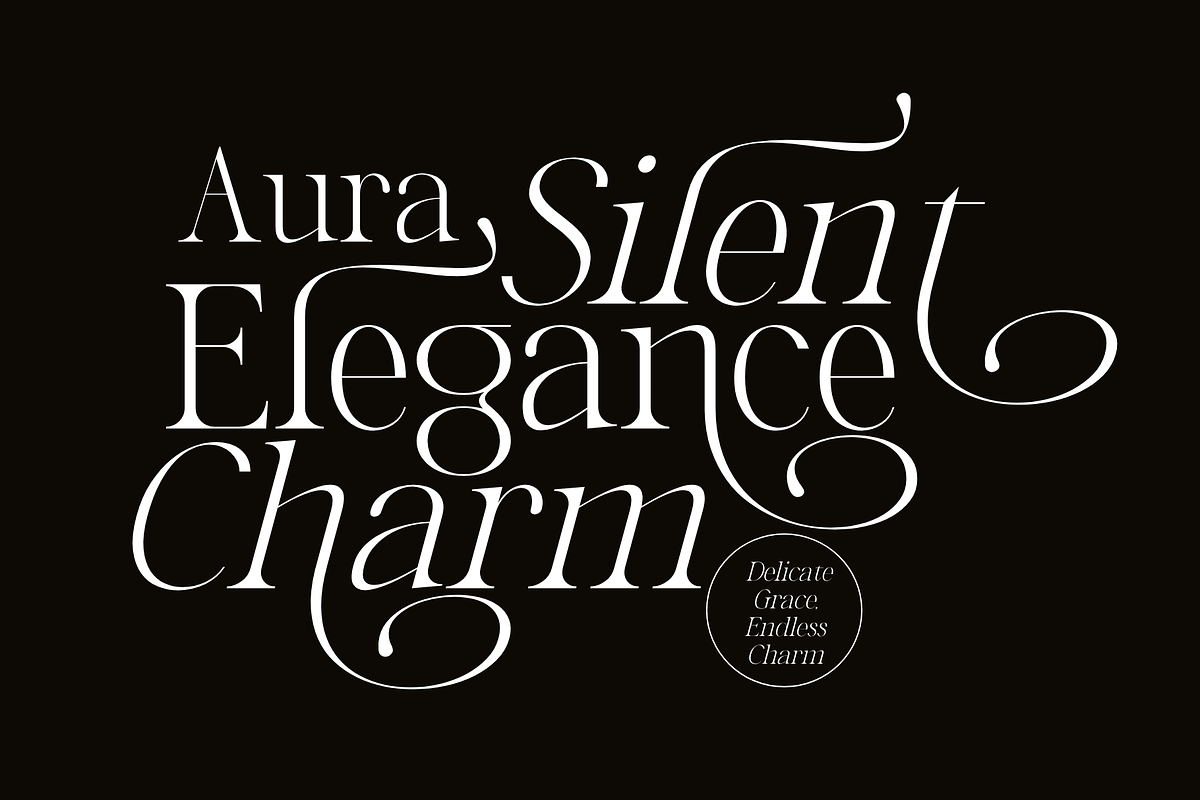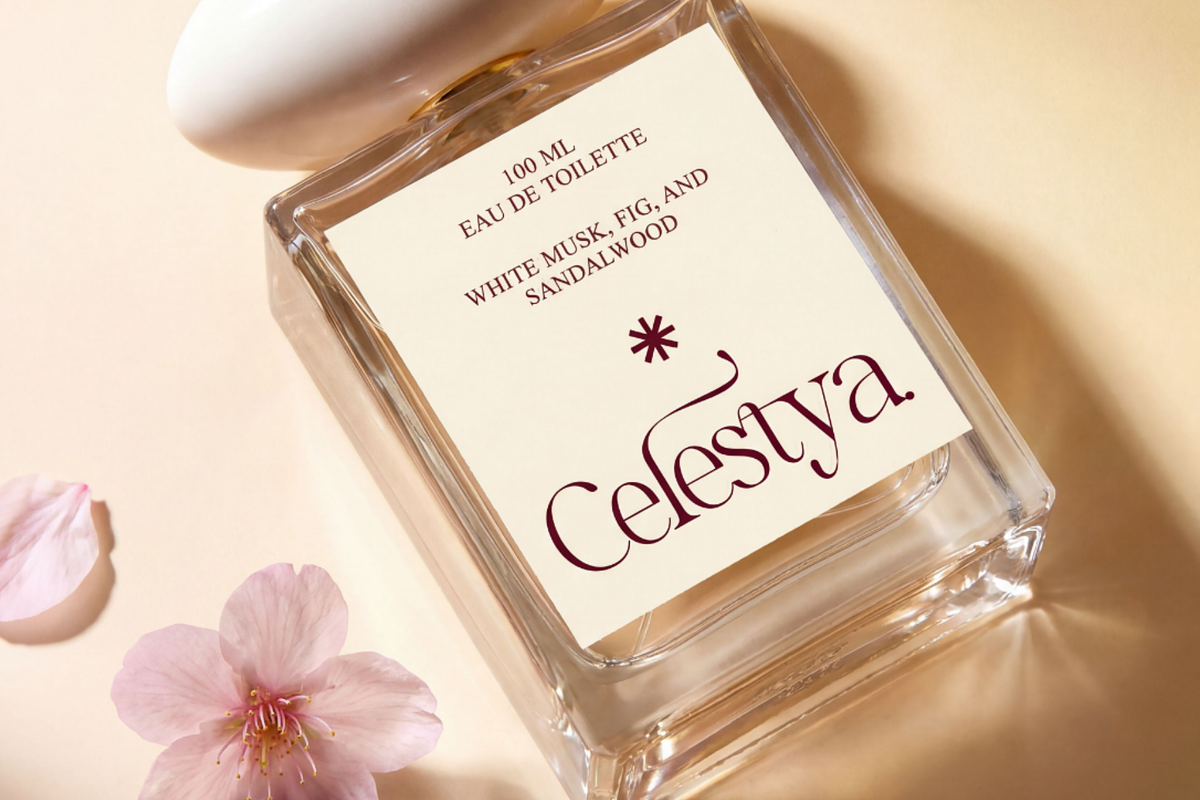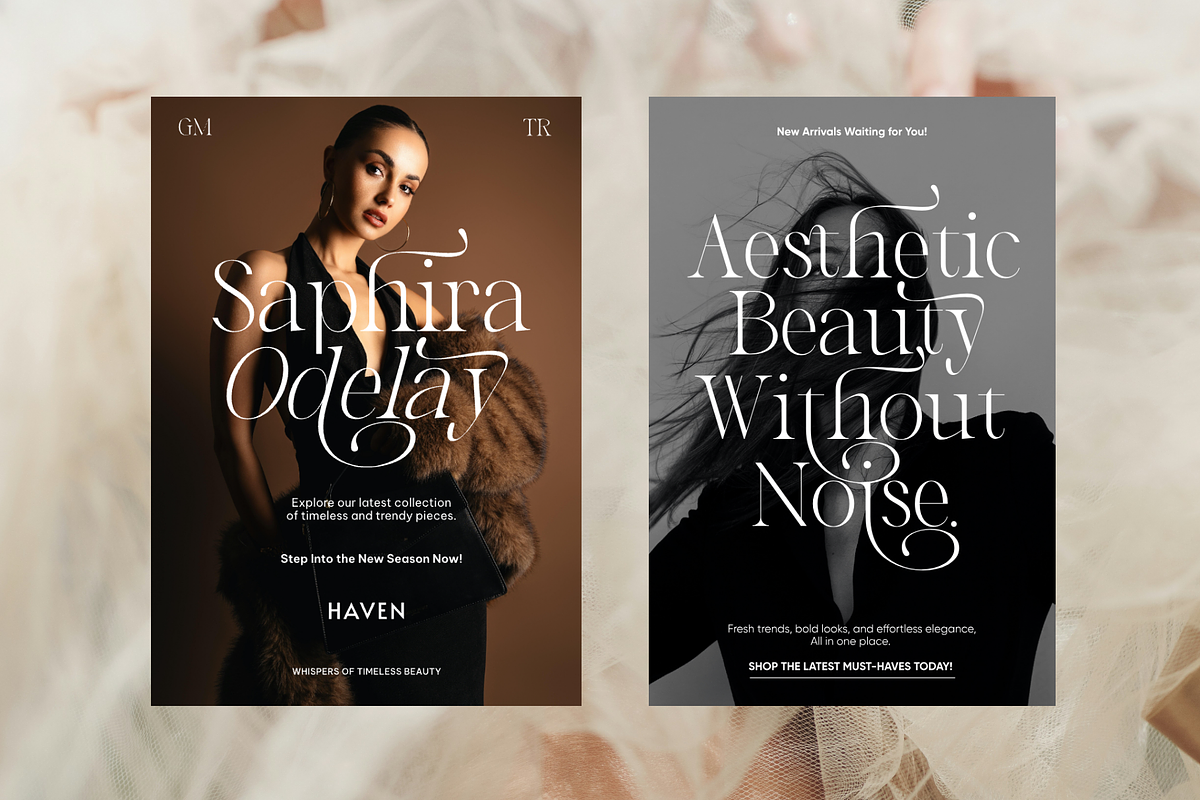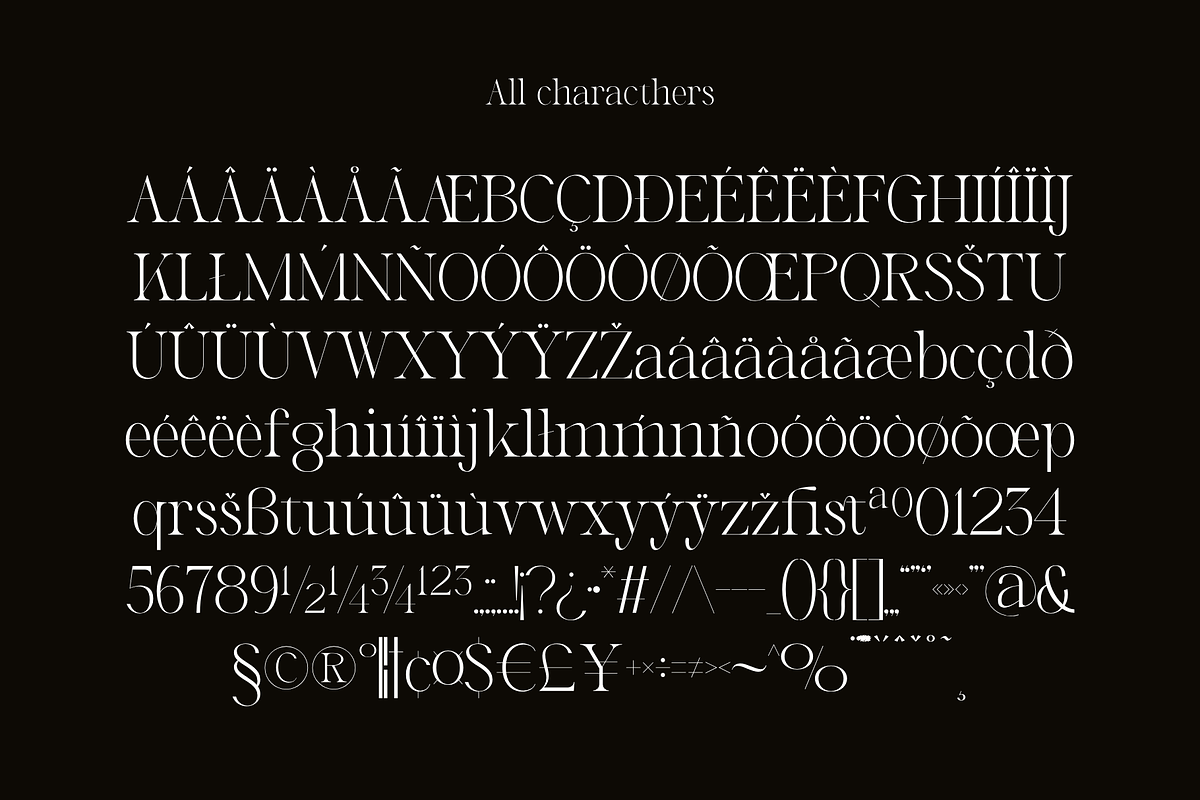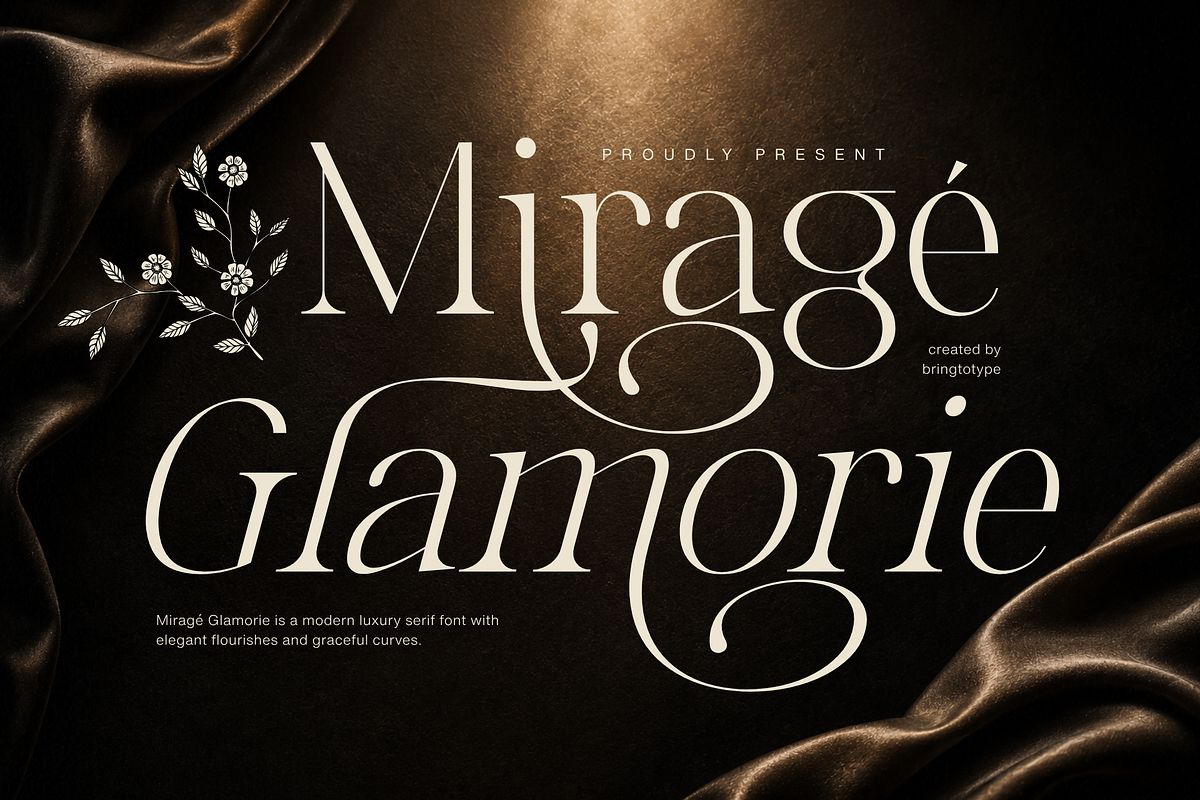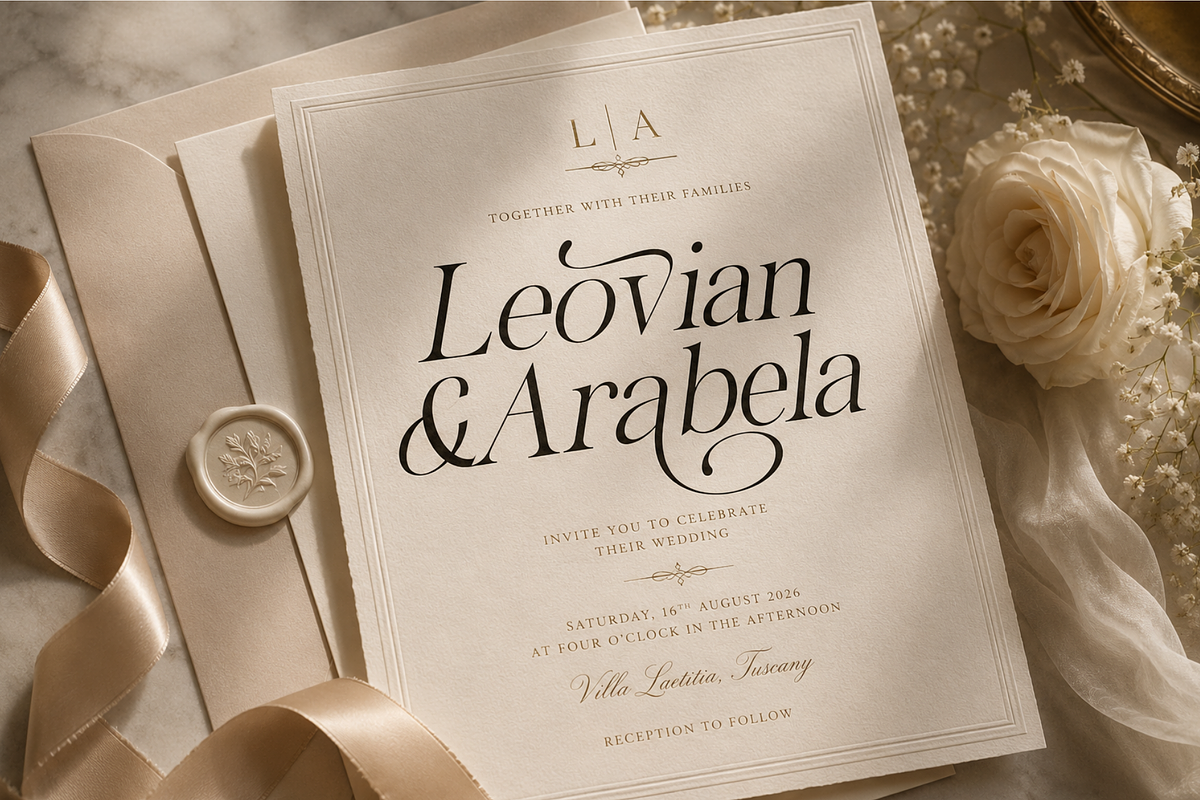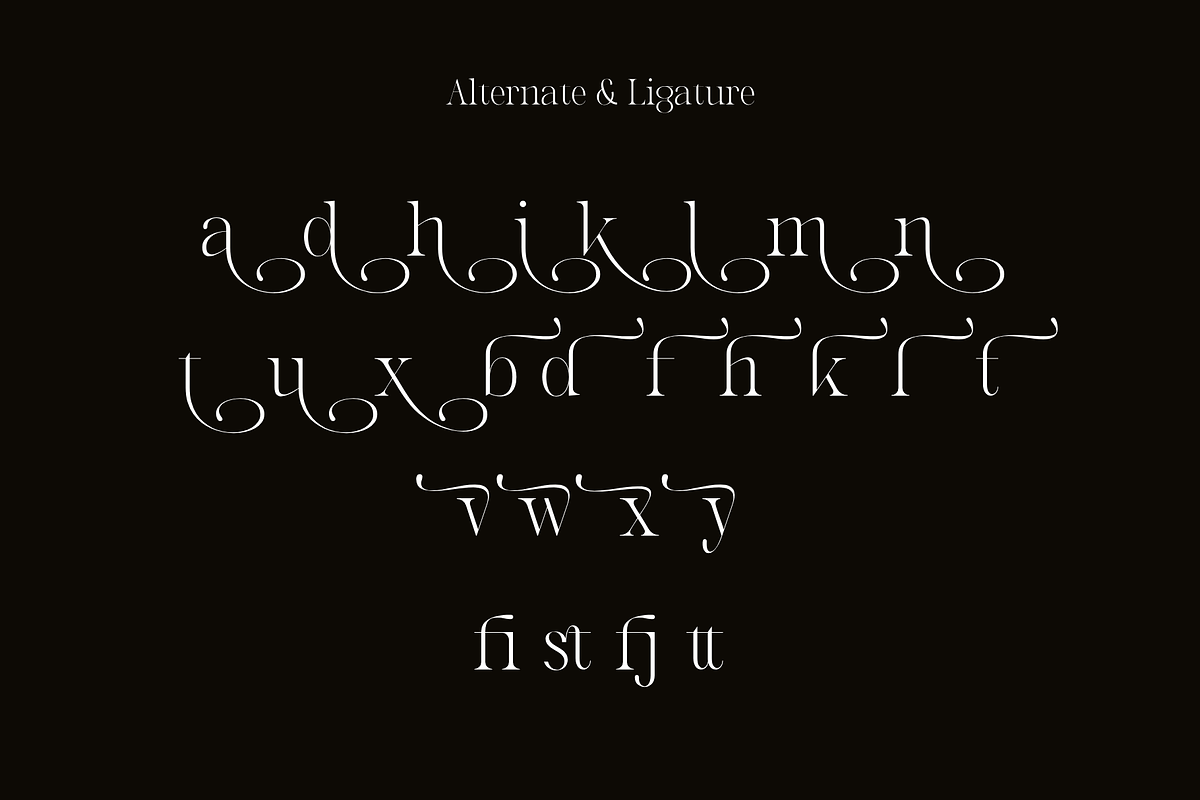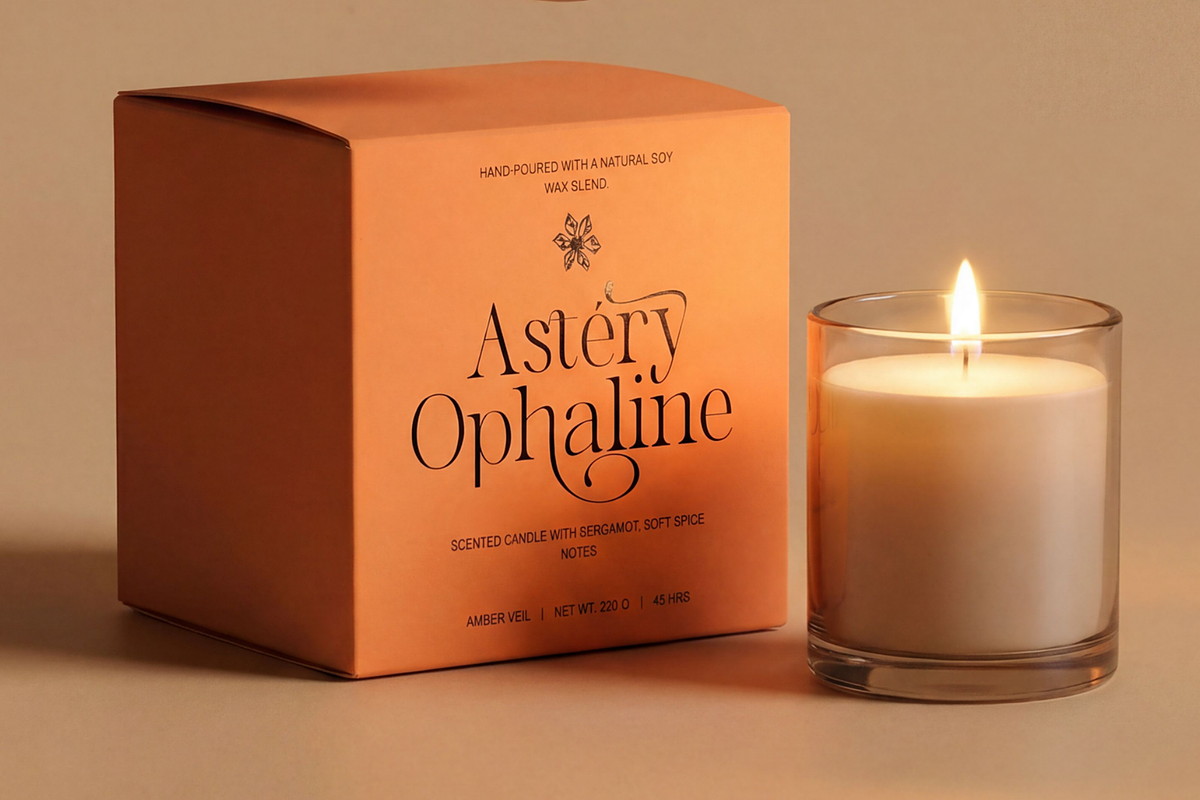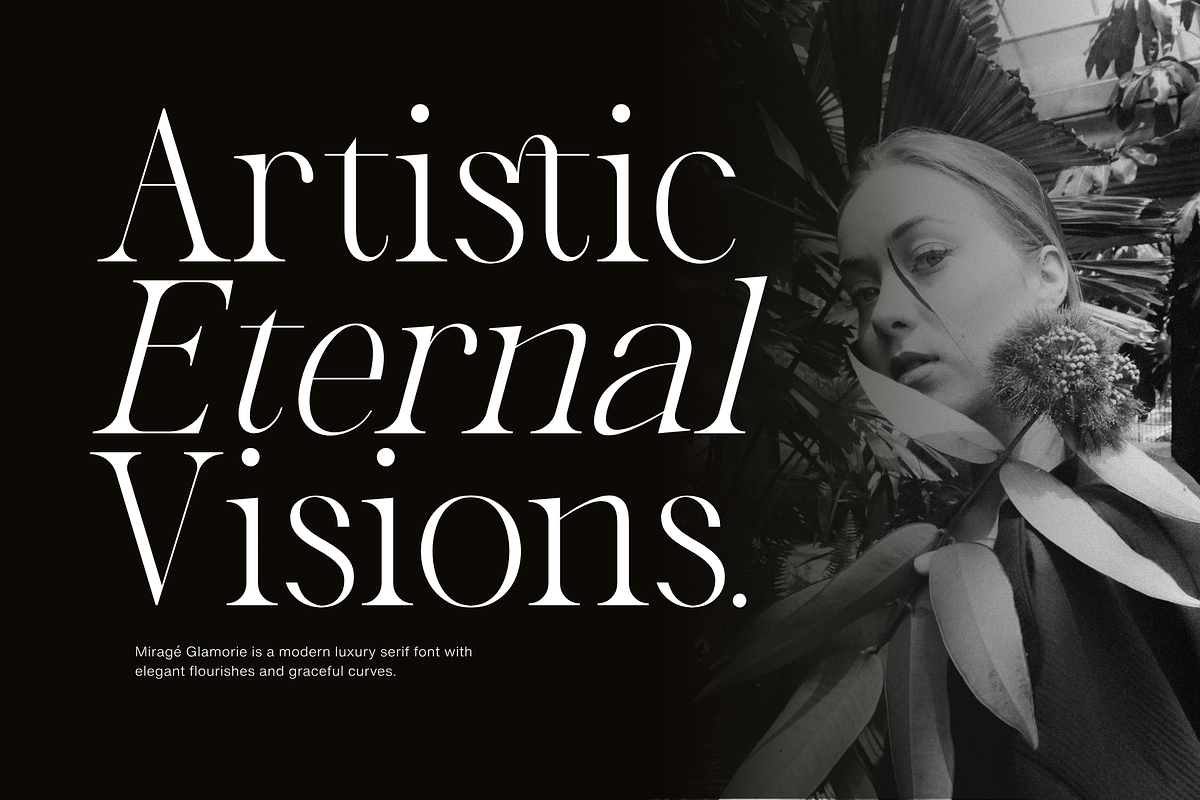
Mirage Glamorie - Elegant Serif
MIRAGÉ GLAMORIE: Luxury Editorial Serif Elegant, Dramatic, and Timeless
MIRAGÉ GLAMORIE is a luxurious serif typeface crafted with refined contrast, graceful curves, and sophisticated flourish details. Inspired by high-fashion editorials and premium beauty branding, this typeface embodies elegance, femininity, and modern luxury in every letterform.
Refined Flourishes with Couture Appeal
Designed with delicate serif structures and flowing ornamental swashes, MIRAGÉ GLAMORIE creates a striking visual presence while maintaining balance and sophistication. Its dramatic proportions and elegant rhythm make it perfect for designs that seek exclusivity and artistic refinement.
Perfect for Luxury Branding
Whether used for wedding invitations, cosmetic packaging, fashion campaigns, logo design, perfume branding, or editorial websites, MIRAGÉ GLAMORIE adapts beautifully across premium visual identities. The typeface instantly elevates layouts with a glamorous and couture-inspired atmosphere.
A Typeface Designed to Captivate
MIRAGÉ GLAMORIE is created for designers who appreciate timeless beauty and expressive typography. Combining romantic elegance with modern editorial style, this font transforms every composition into a sophisticated visual statement filled with luxury and charm.